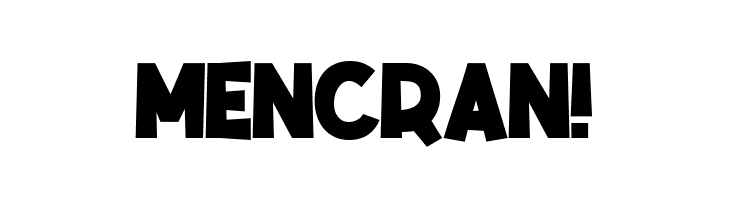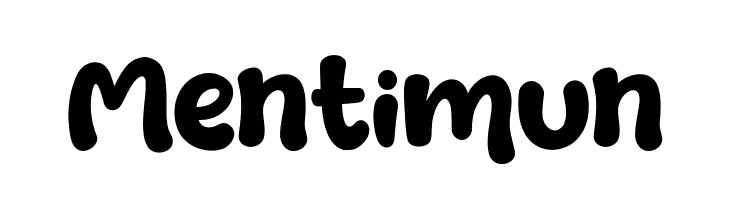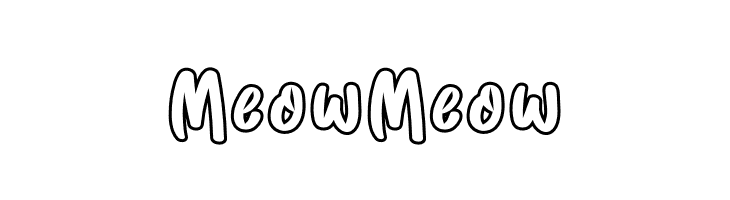
( Fonts by Ghuroba Studio )
A playful, rounded font with a friendly and approachable style.
( Fonts by Ghuroba Studio )
Hand-drawn decorative border and motif dingbats.
( Fonts by Balpirick Studio )
A playful, bold font with a melting, liquid-like effect and thick outlines.
( Fonts by CconceptLab )
Bold, playful, and cartoonish font.
( Fonts by Vz Type )
A bold, playful font with a hand-drawn, cartoonish style.
A playful, bold font with rounded, bubbly characters ideal for creative projects.
( Fonts by Stefani Letter )
A bold, playful handwritten font with a lively and energetic style.
( Fonts by Gunawan )
A playful, hand-drawn font with bold, rounded outlines and a whimsical style.
( Fonts by Hanoded )
A playful, hand-drawn font with cat-themed characters and a whimsical style.
( Fonts by Four Lines )
A playful, bold font with rounded, thick characters and a whimsical style.